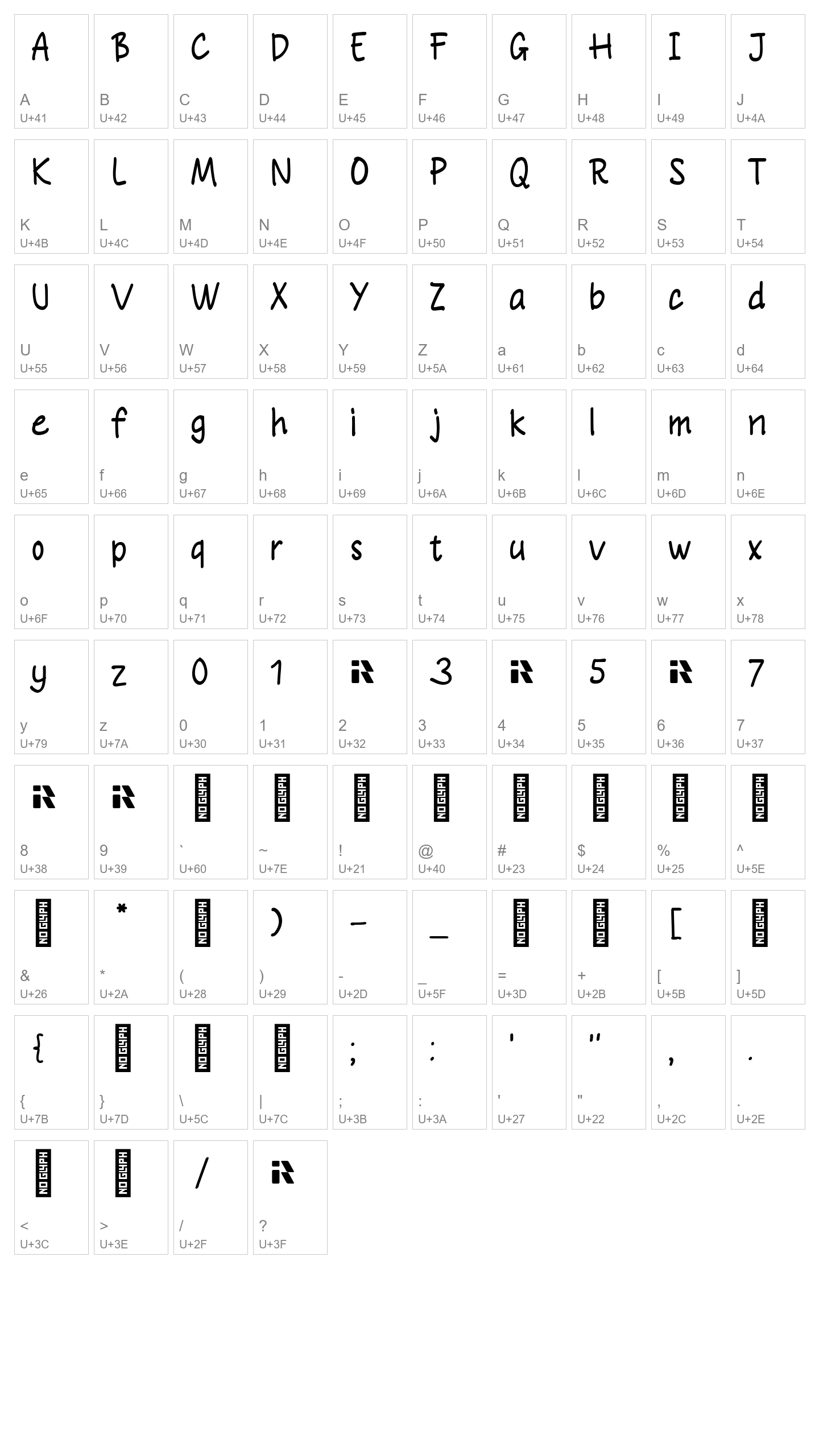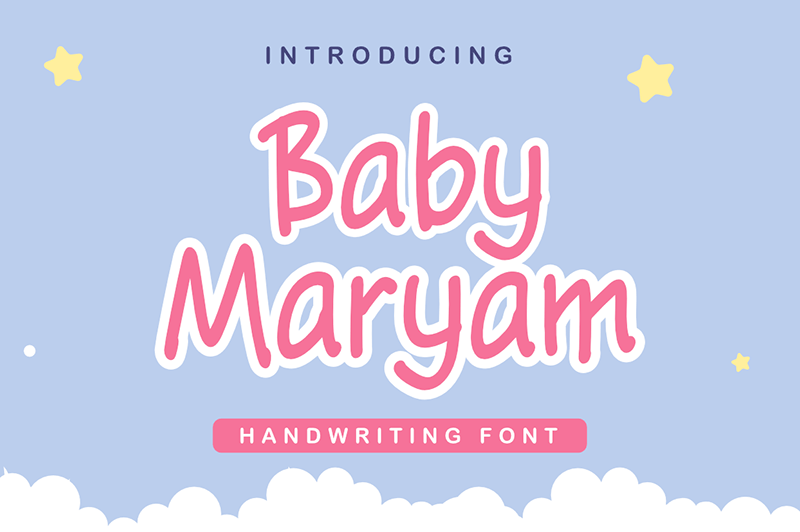
Baby Maryam
Introducing, Baby Maryam font is a font with a cute and unique handwriting style.
Handwritten with natural characters that add a cute and unique feel to this font.